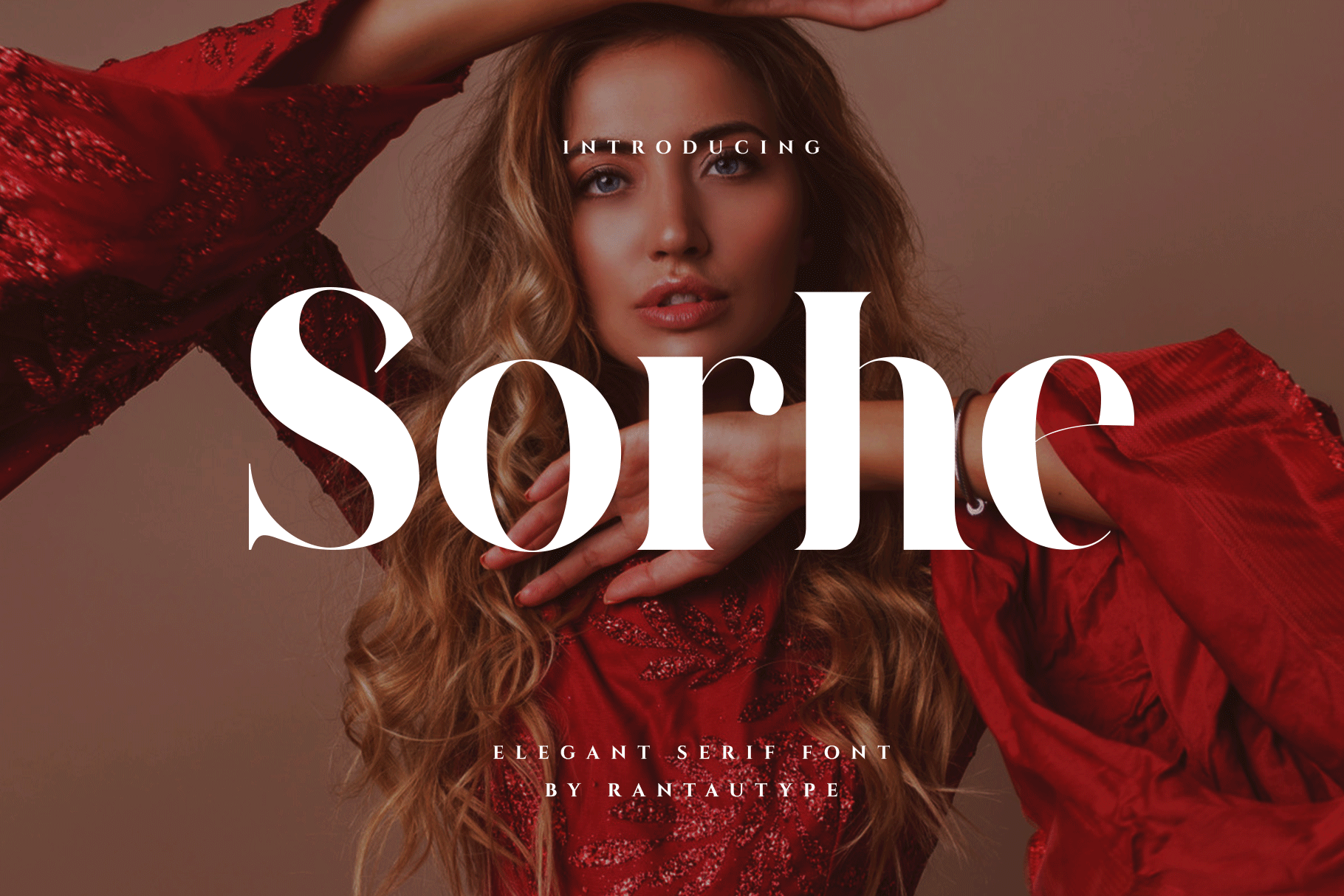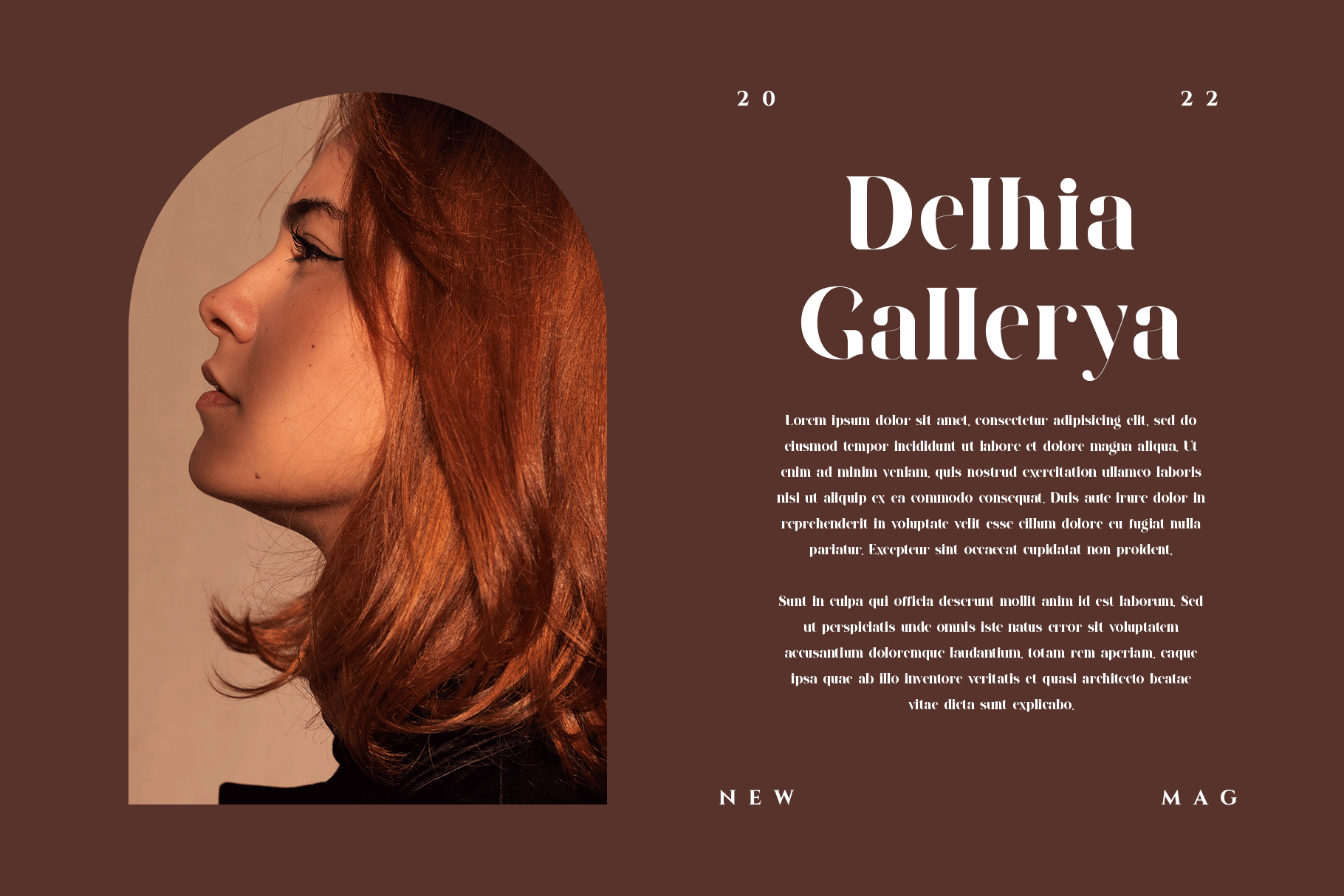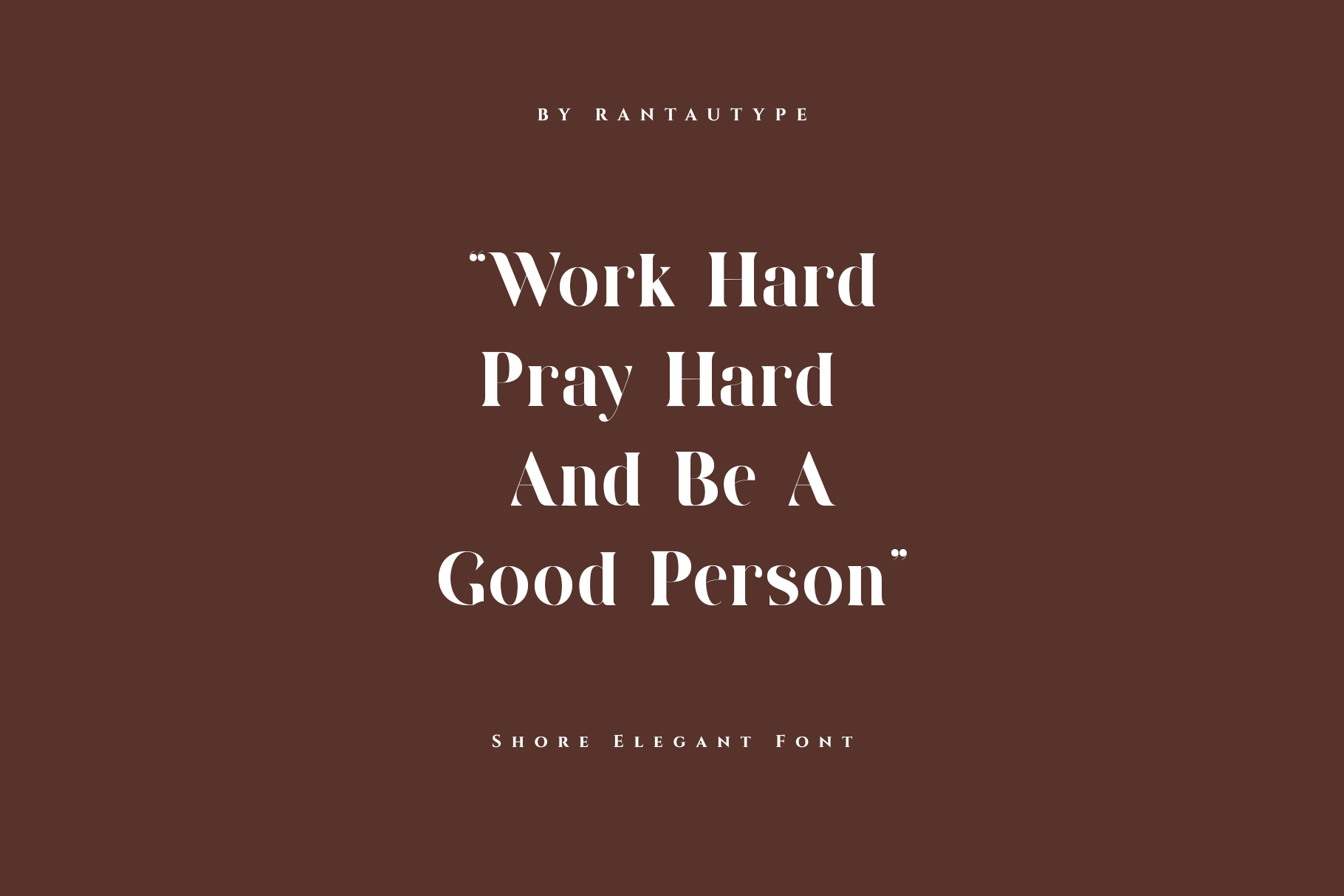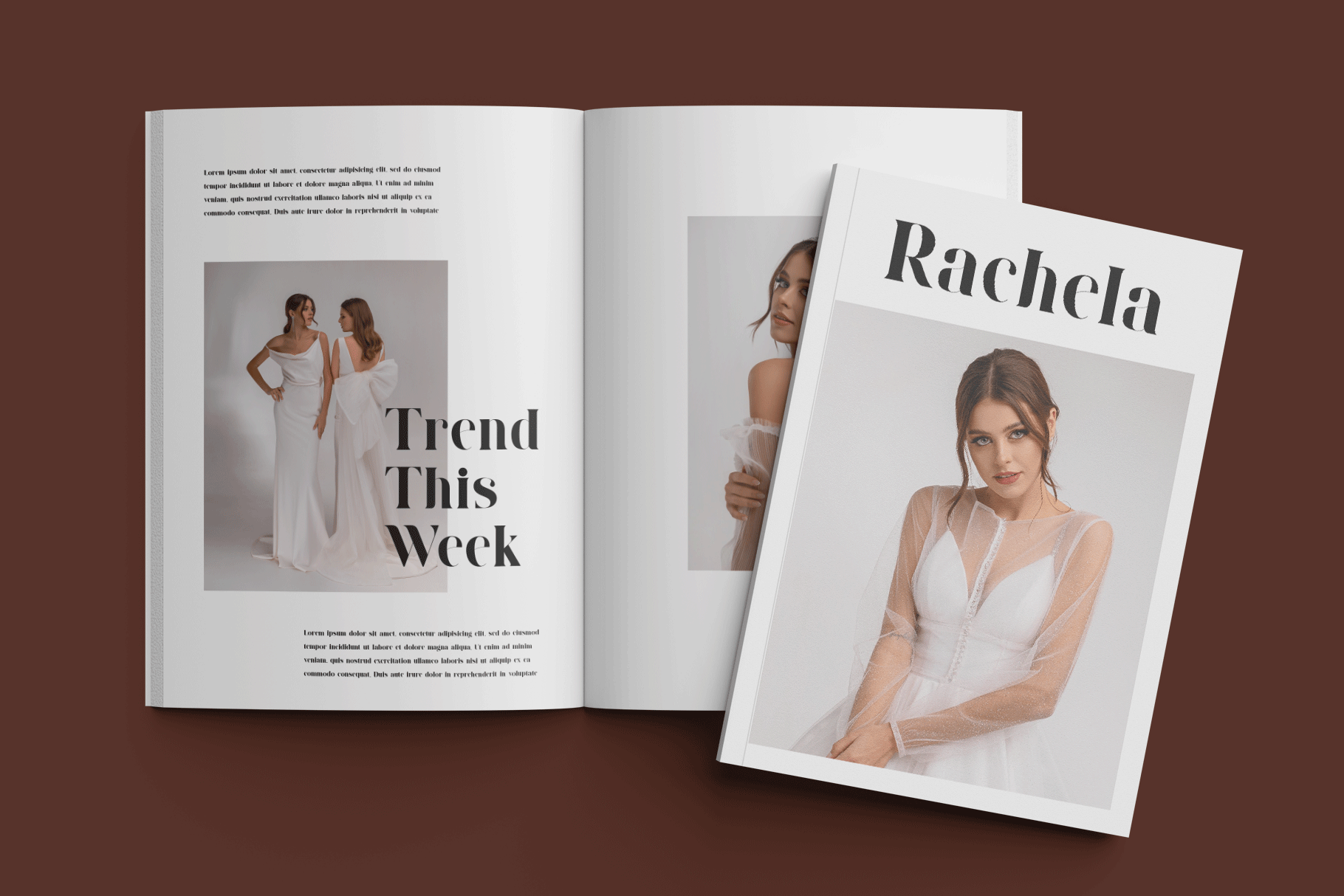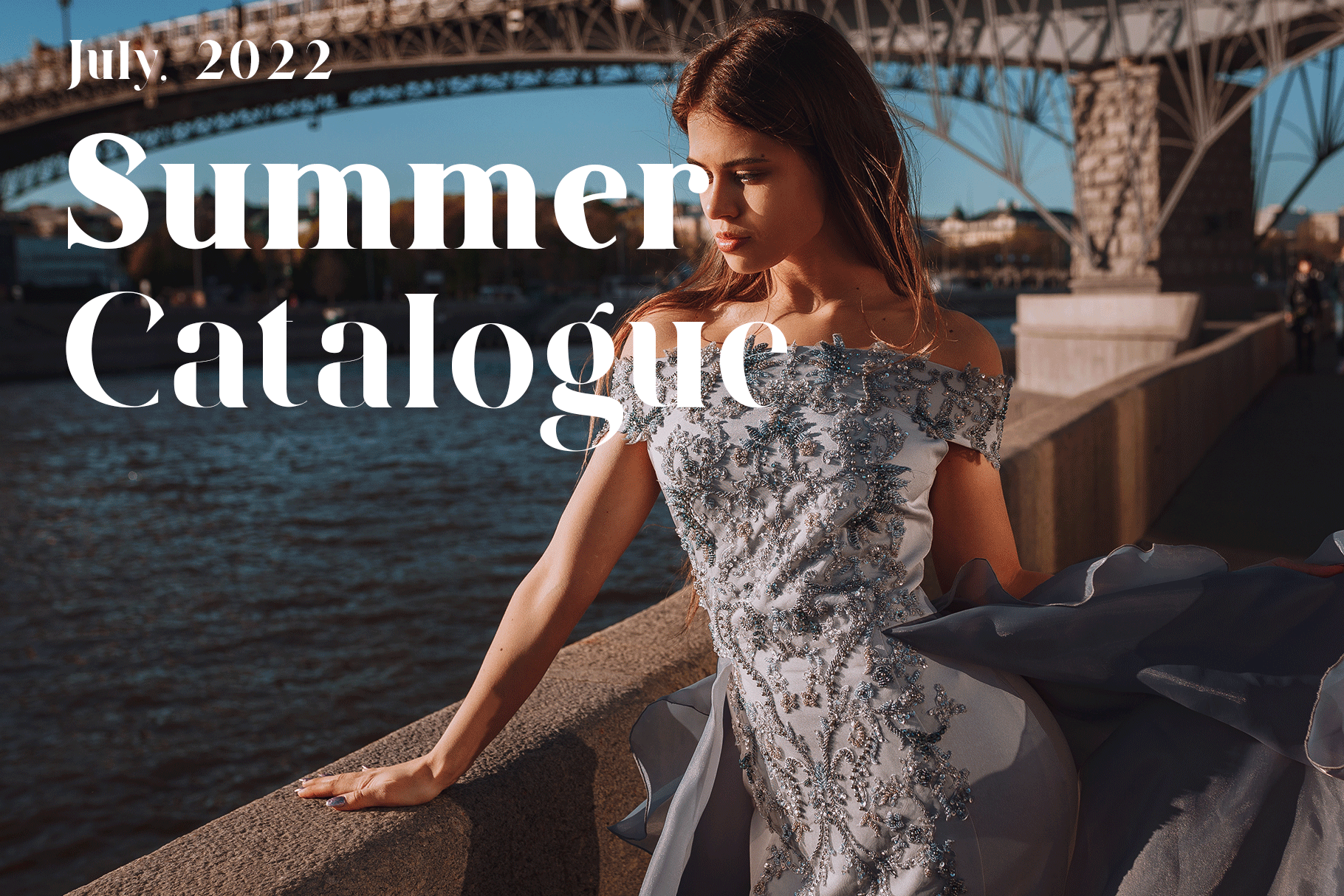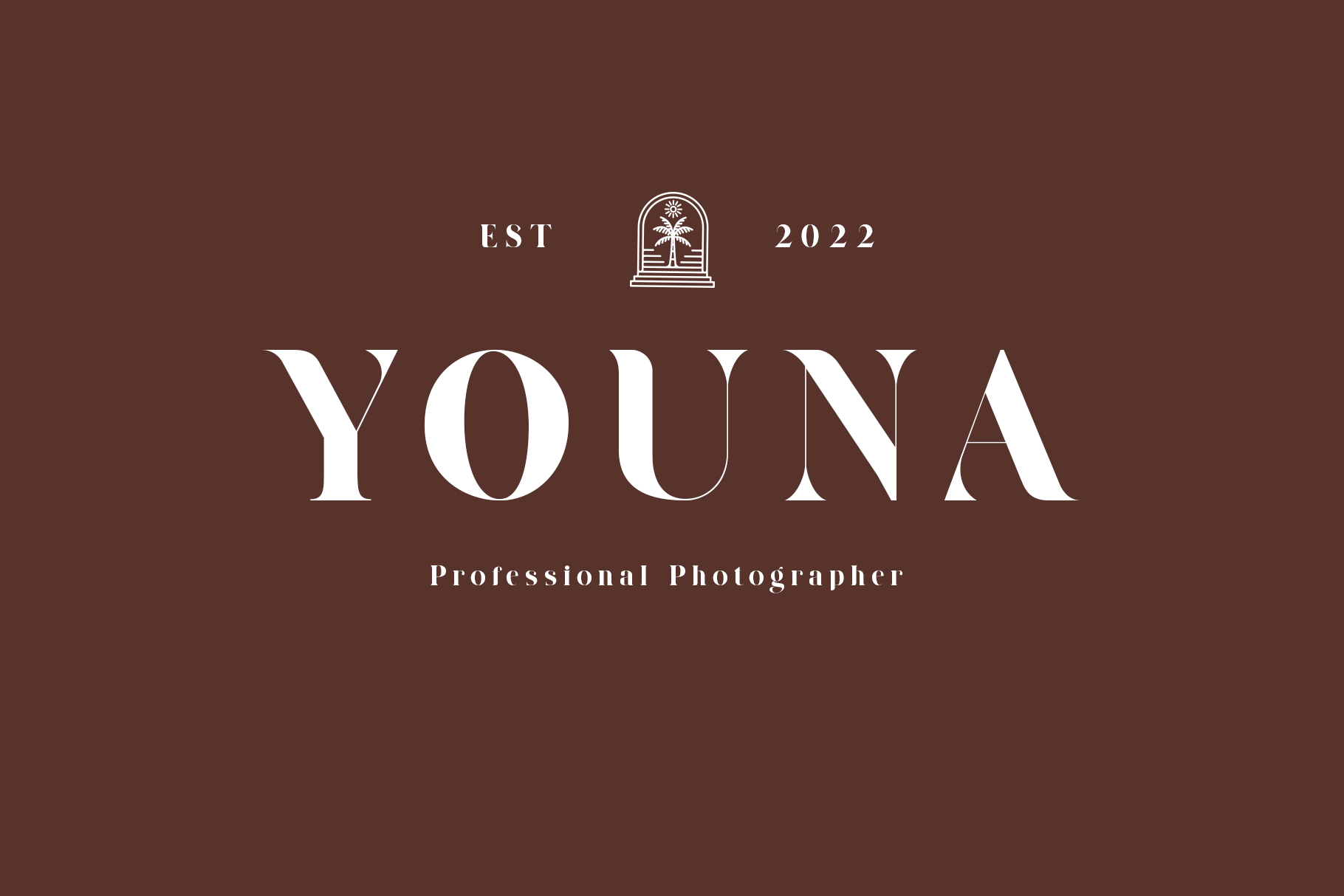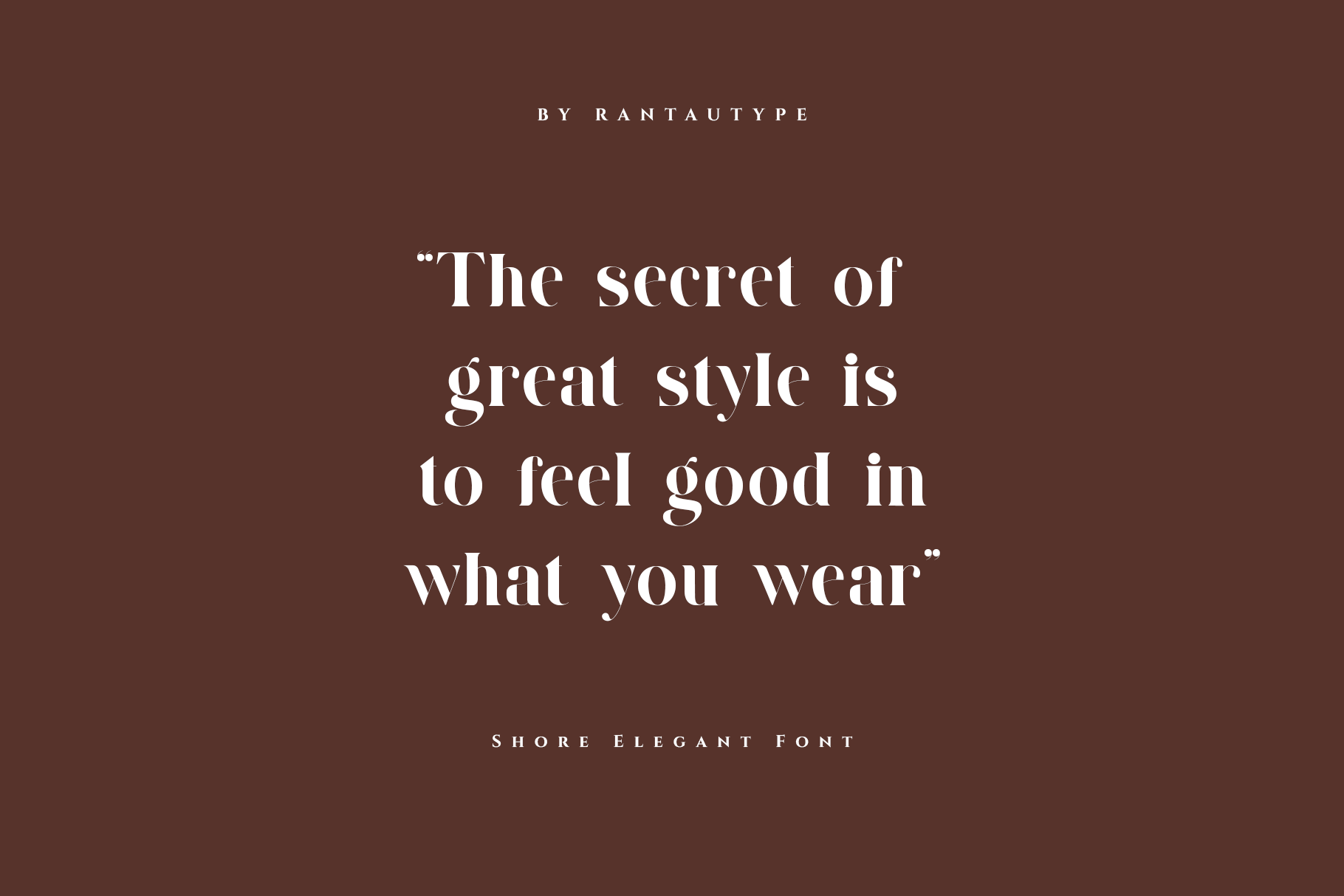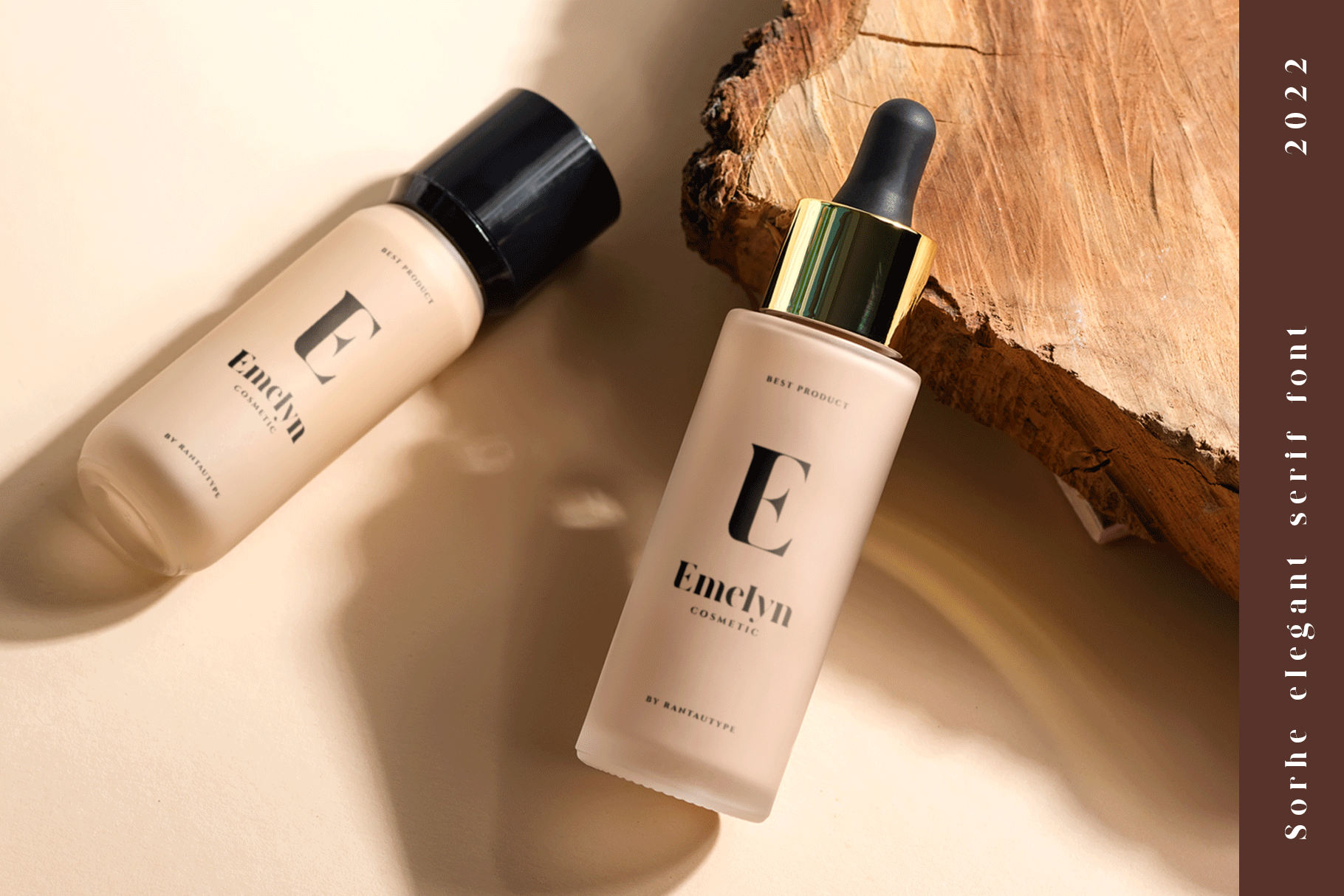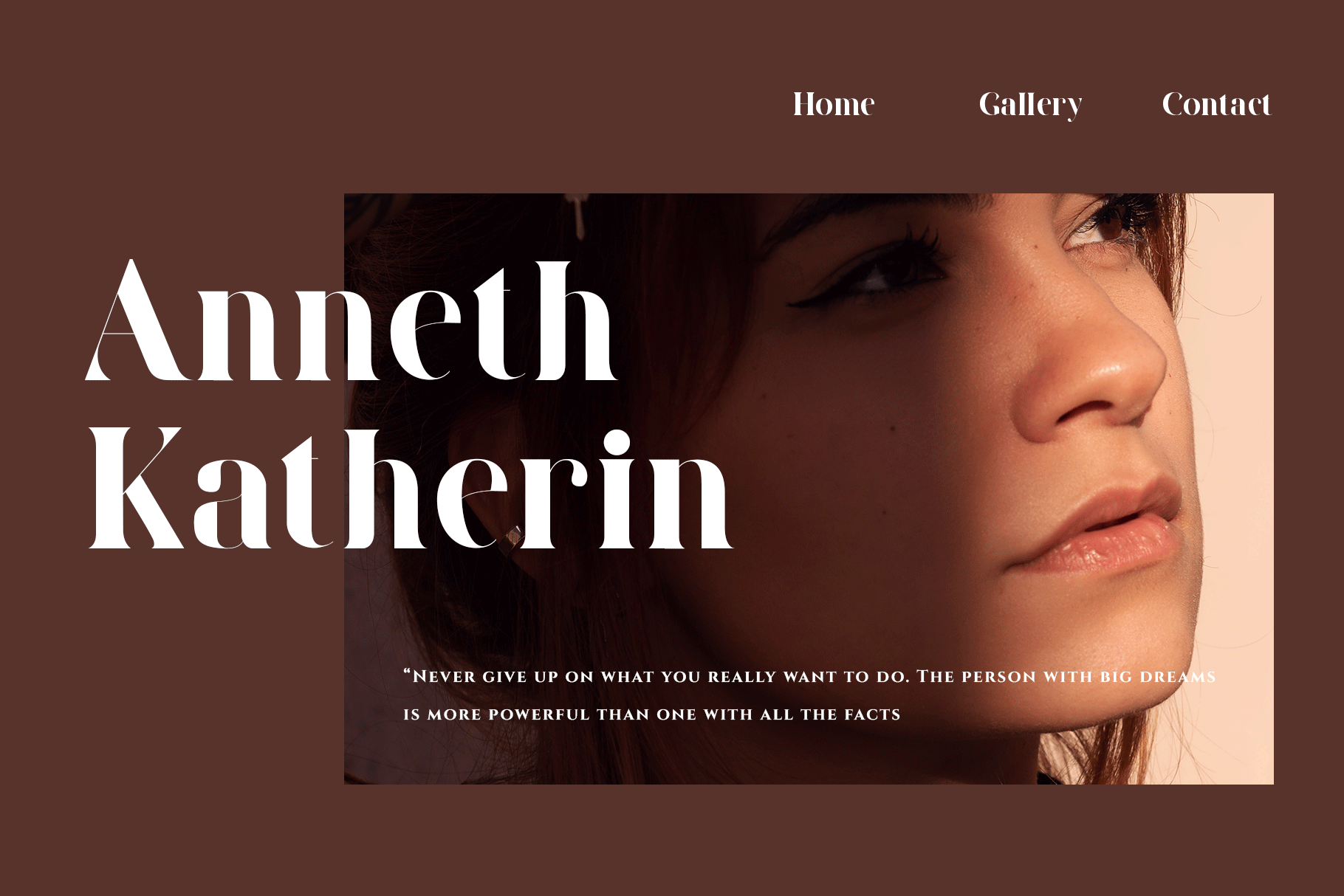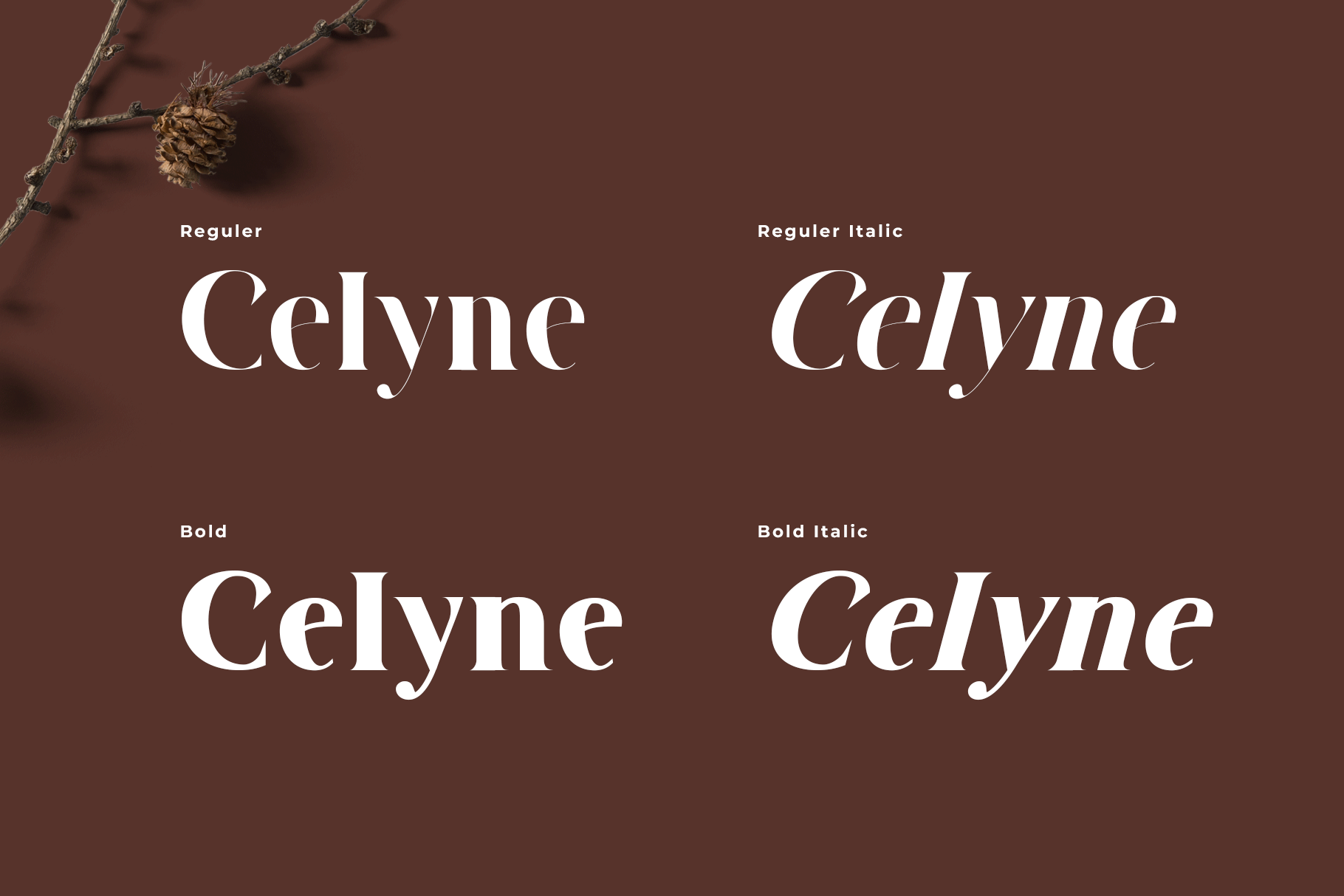
Sorhe Elegant Serif Font
Sorhe is  elegant serif font. Sorhe have 4 font reguler, reguler italic, bold and bold italic. Many  professional brands that need an elegant logo, that’s why I made this font. Sorhe is perfect for BRANDING and LOGO DESIGN . You will get classy, elegant, and certainly unique logos with this font. Sorhe here to make your brand to high level!!!
• Standar letter A-Z and a-z